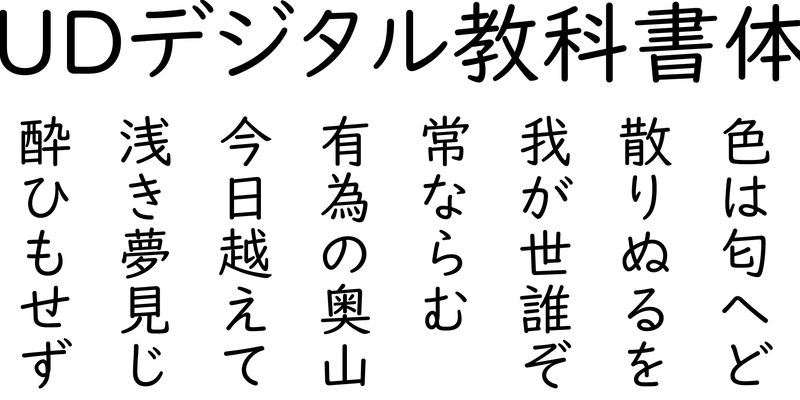
UDDigiKyokasho Pro Font Free Download is a highly legible, educational-style typeface designed with Universal Design (UD) principles to enhance clarity and readability. Inspired by traditional Japanese textbook fonts (Kyokasho-tai), UDDigiKyokasho Pro blends a classic, school-friendly feel with modern refinements—making it ideal for educational content, digital interfaces, signage, and any application requiring accessible, easy-to-read typography.
This Pro version includes an extensive character set that supports both Japanese (kanji, hiragana, katakana) and Latin scripts, making it suitable for multilingual and academic projects. Its clean strokes, balanced spacing, and soft curves ensure comfortable reading across ages and screen types.